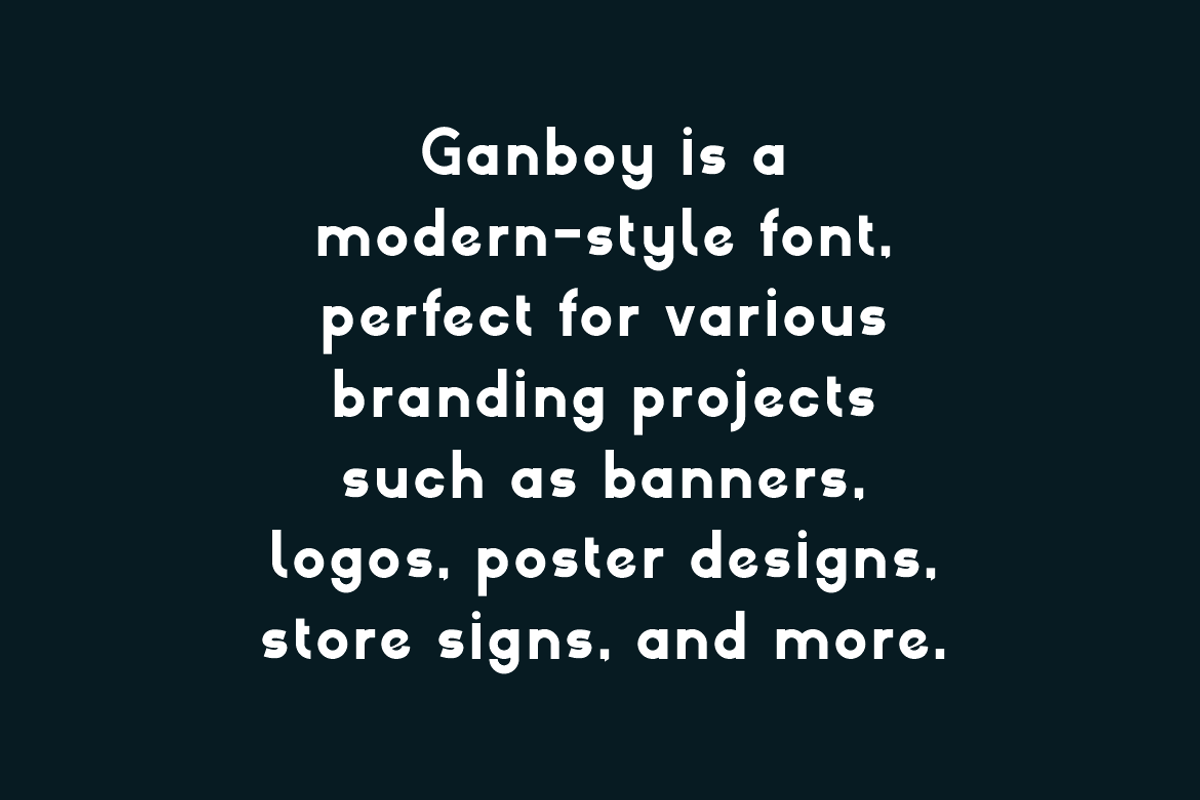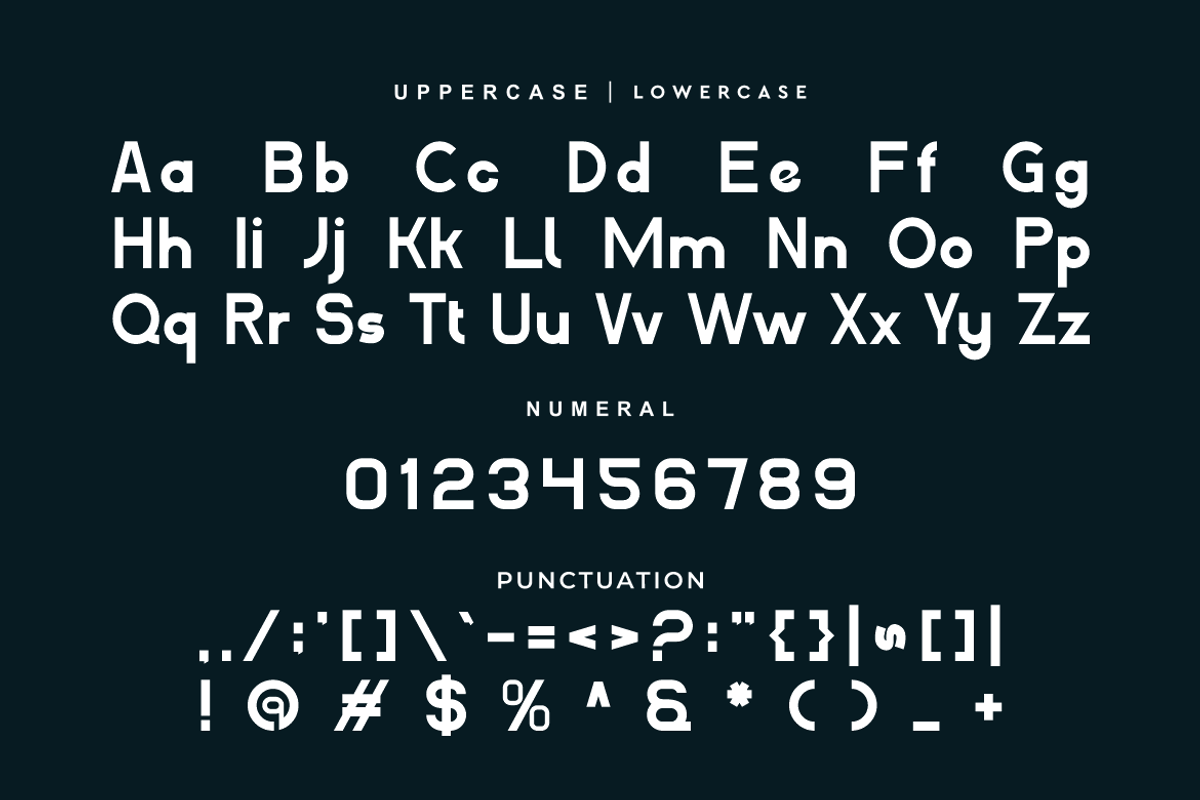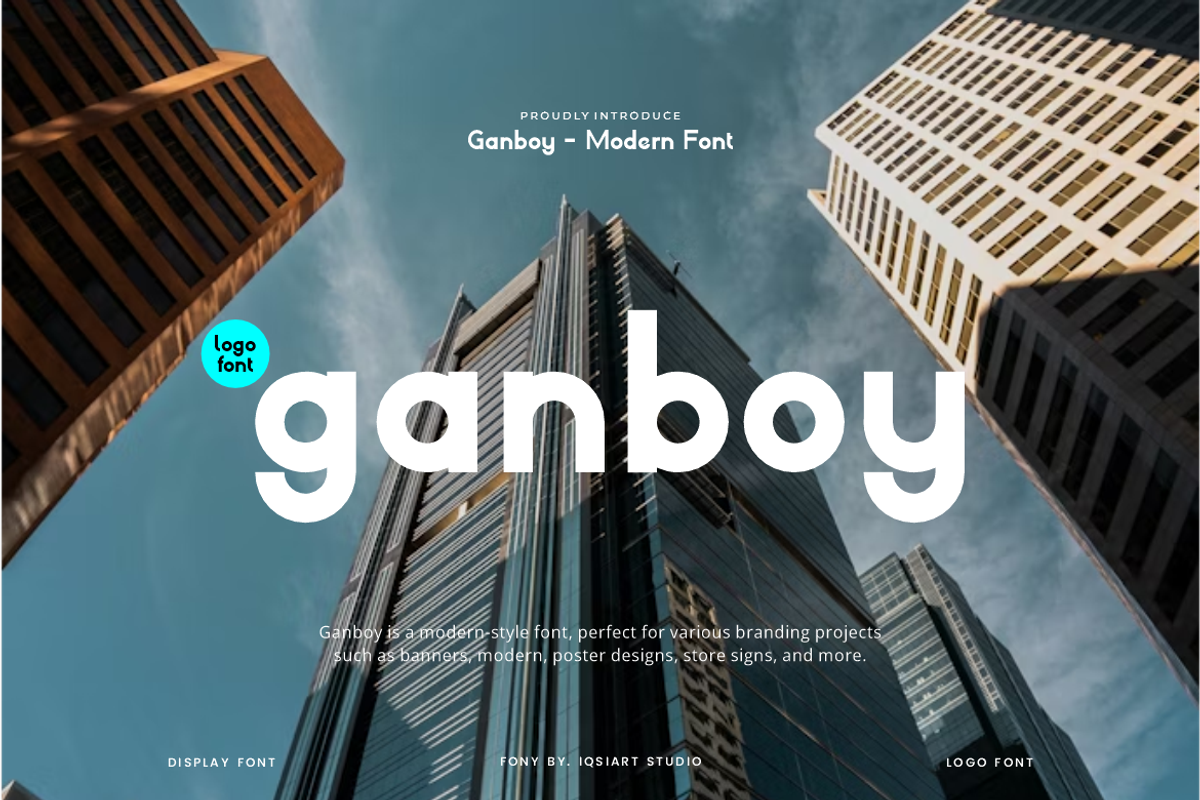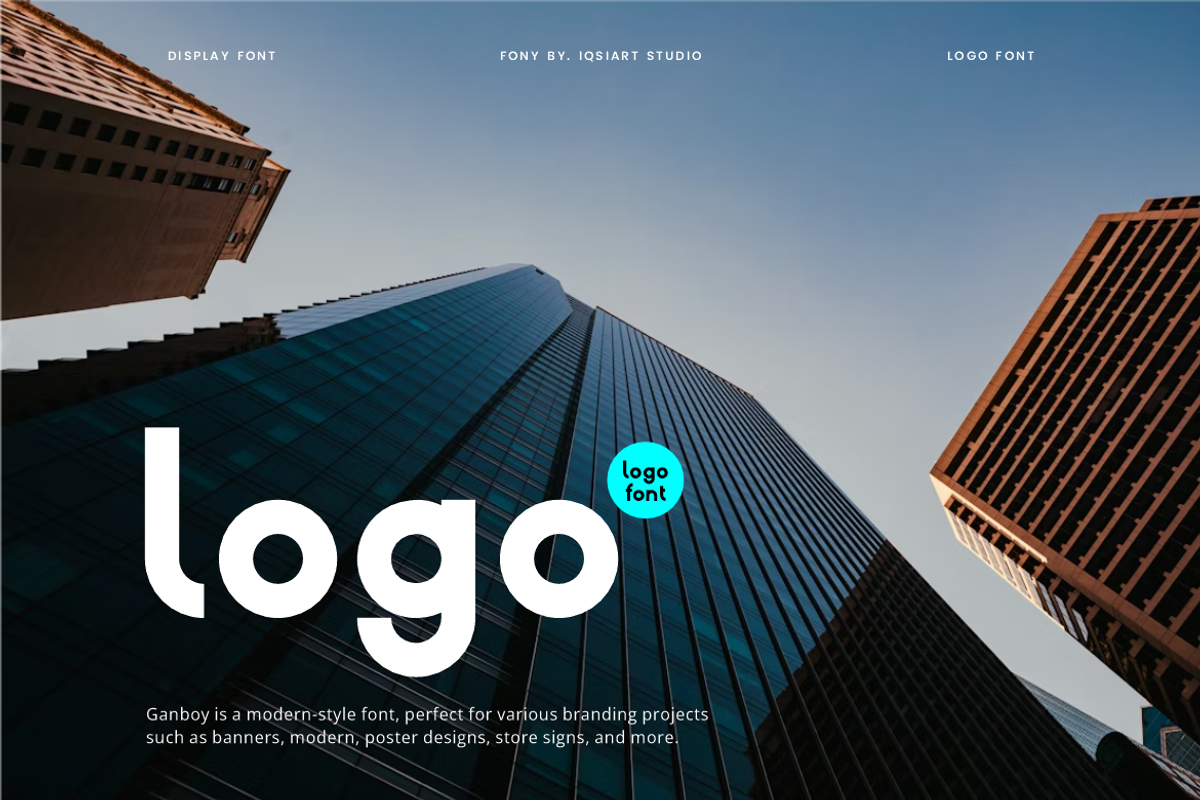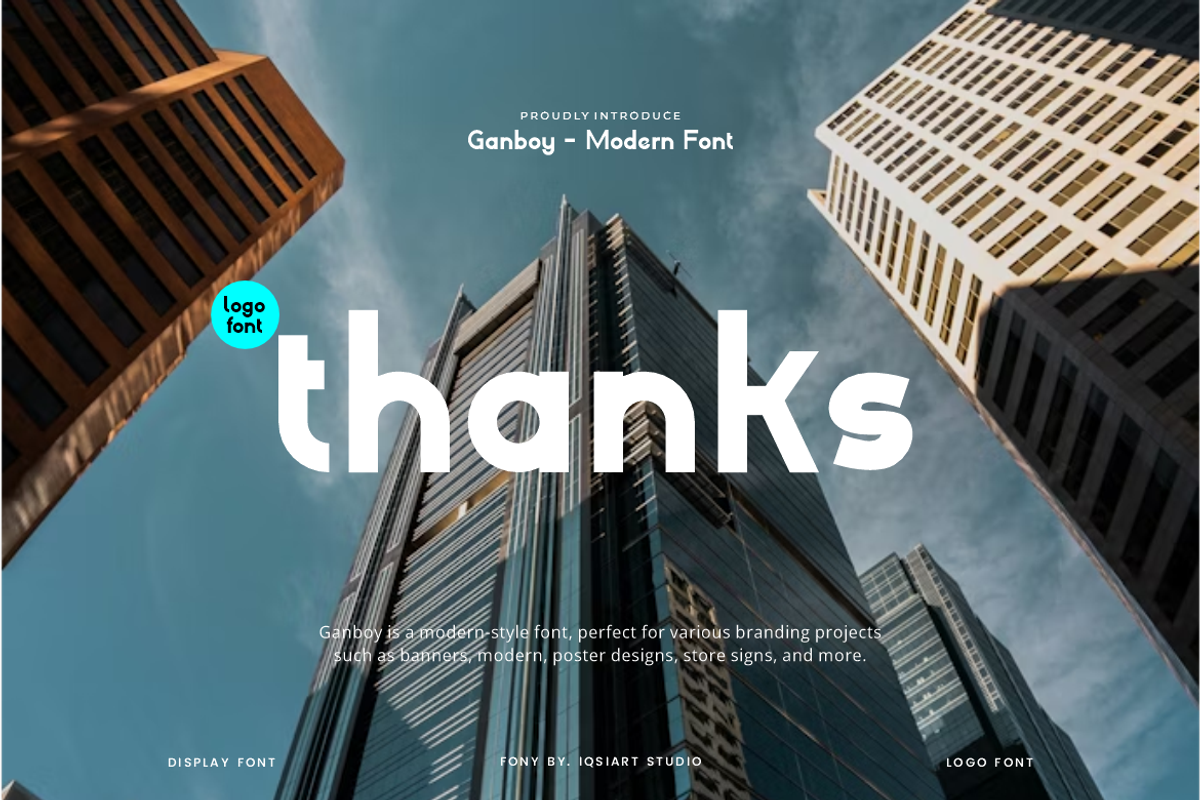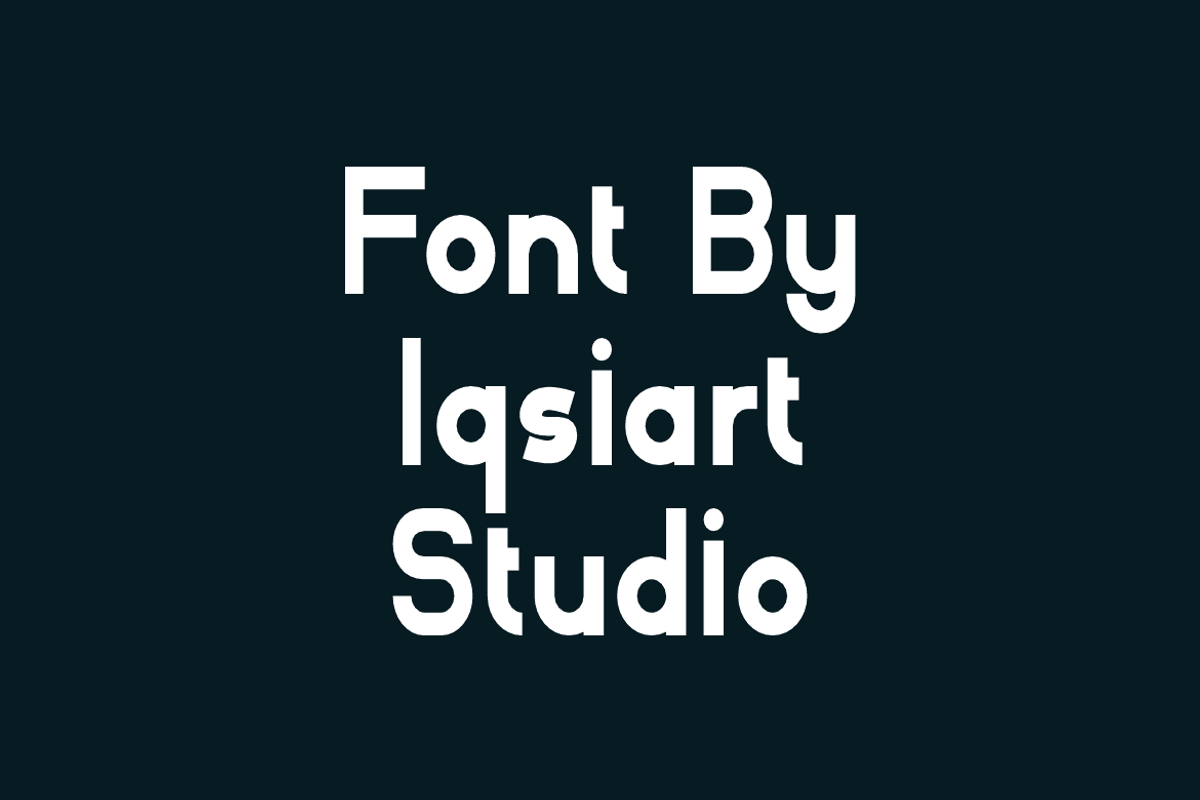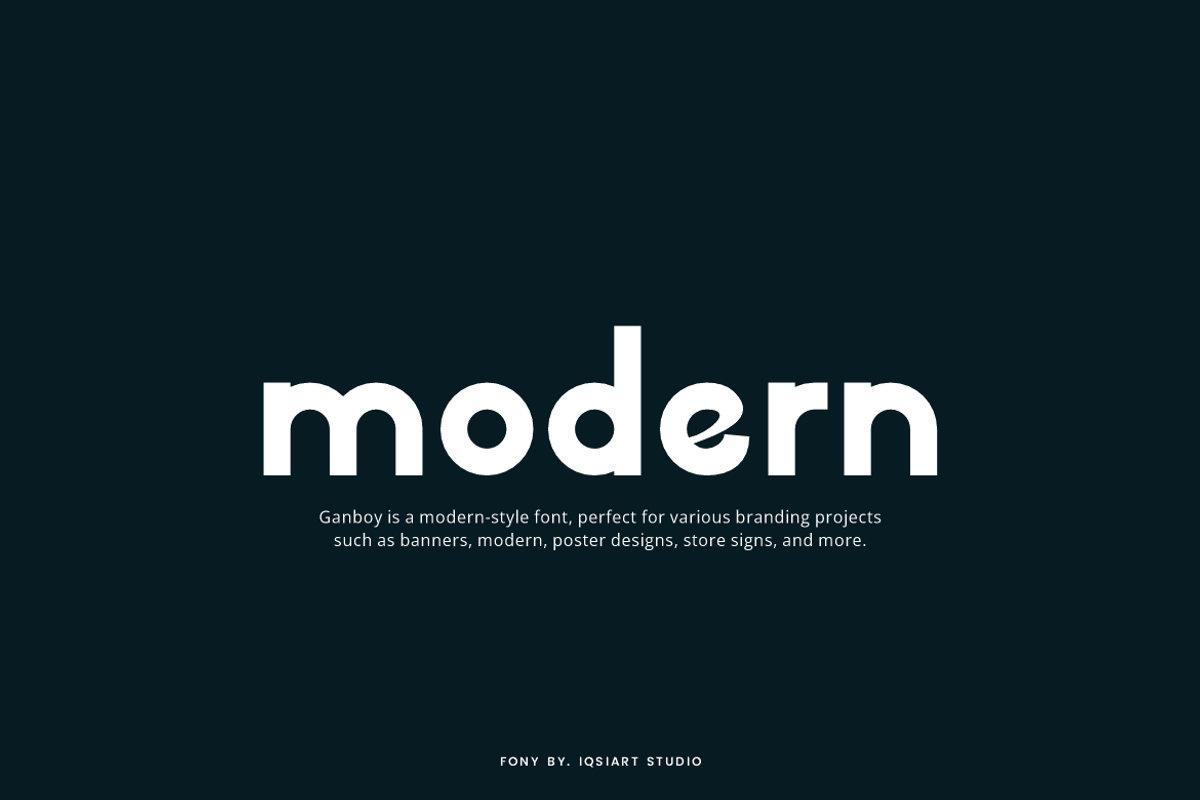
Ganboy - Modern Font
Ganboy Font is a bold and authentic display typeface that suits a variety of design needs. We offer a wide range of themes and font styles — visit our profile to explore more and find the perfect style for your project.